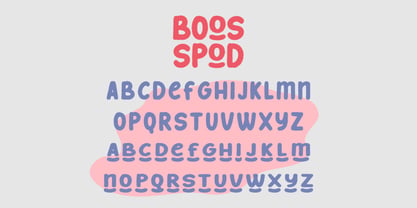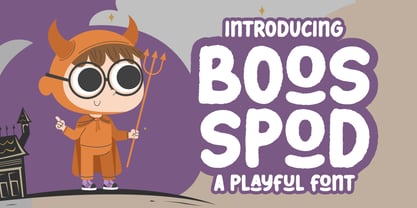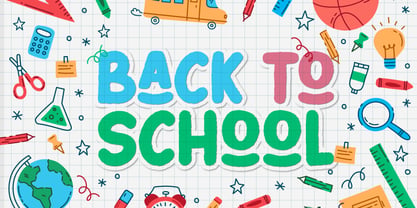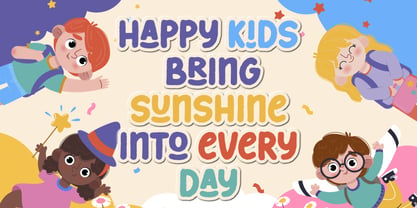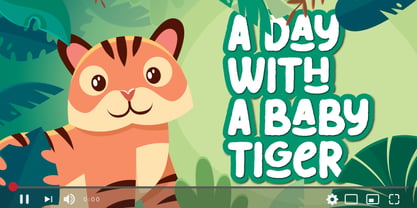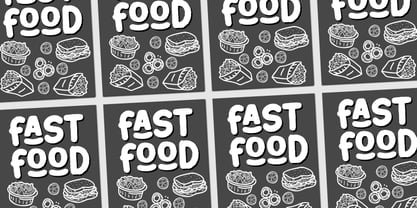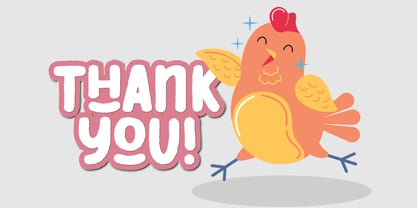
Boos Spod
by Bayuktx
The Boos Spod Font Family was designed by Bayu Aji Fais Mursid and published by Bayuktx. Boos Spod contains 1 styles. More about this family
Boos Spod – Playful Doodle Font Boos Spod Playful Doodle Font is a fun and cheerful display typeface inspired by cute characters, mischievous expressions, and hand-drawn doodle art. Featuring bold rounded shapes, quirky proportions, and imperfect strokes, this font delivers a charming and lively personality. Designed to capture the joy of creativity, Boos Spod blends cartoon-style lettering with a soft, friendly appearance. The uneven edges and organic forms give it an authentic doodle feel, making every character look expressive, playful, and full of life. With its approachable and whimsical aesthetic, Boos Spod is perfect for designs that aim to feel fun, cute, and engaging. It brings a unique character that feels lighthearted and imaginative, making it suitable for a wide range of creative projects. Key Features : * Uppercase & Lowercase Characters * Numerals & Punctuation * Multilingual Support * PUA Encoded & OpenType Features * Hand-Drawn Doodle Style * Bold & Rounded Letterforms * Playful & Expressive Look Suitable For : * Kids & Playful Branding * Posters & Social Media Graphics * Cartoon & Comic Projects * Cute Merchandise & Stickers * Invitations & Greeting Cards * Creative Quotes & Headlines * Fun & Whimsical Designs With Boos Spod a Playful Doodle Font, your designs will feel more lively, expressive, and full of cheerful charm — perfect for projects that want to stand out with a fun and friendly vibe.
Designers: Bayu Aji Fais Mursid
Foundry: Bayuktx